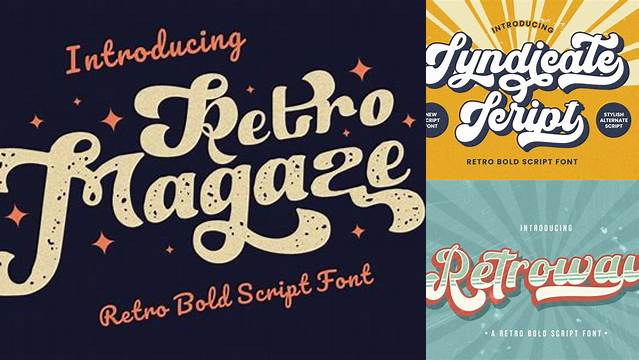
Hey guys! Are you looking to inject some vintage charm and personality into your designs? Look no further than the world of retro bold script fonts! These fonts are perfect for adding a touch of nostalgia, flair, and a whole lot of character to your projects. In this article, we're diving deep into the realm of retro bold script fonts, exploring their uses, where to find them for free, and how to make the most of them in your designs. Let's get started!
1. What Makes a Font 'Retro Bold Script'?
So, what exactly defines a retro bold script font? Well, it's a combination of elements that evoke a sense of the past. Retro implies a style that's reminiscent of previous eras, often the mid-20th century (think the 50s, 60s, and 70s). Bold refers to the weight of the font, making it stand out and grab attention. And script indicates a font that's designed to mimic handwriting, often with flowing lines and elegant curves.
When you put it all together, a retro bold script font is a typeface that carries the visual characteristics of vintage handwriting with a strong, assertive presence. These fonts often feature exaggerated swashes, loops, and terminals that add to their unique character. They can range from playful and whimsical to sophisticated and refined, depending on the specific design. The key is that they all have a distinct retro vibe that makes them instantly recognizable and appealing.
The use of retro bold script fonts can instantly transport your audience to another time. Whether you're designing a logo, creating a poster, or crafting a website, these fonts can add a layer of authenticity and visual interest that's hard to achieve with more modern typefaces. They're a fantastic way to make a statement and stand out from the crowd, especially in a world where so many designs tend to look the same.
2. The Allure of Free Retro Fonts
- Creative Market: This platform often features free goods, including fonts, that are available for a limited time. Keep an eye out for retro bold script fonts in their freebies section.
4. Essential Font Licensing Information
Before you start using any free retro bold script font in your projects, it's crucial to understand the font license. Font licenses dictate how you can use the font, and violating the terms can lead to legal issues. Here are some common types of font licenses:
- Commercial License: Allows you to use the font for commercial purposes, such as in logos, advertising, and products for sale.
- Personal Use License: Restricts the use of the font to personal projects, such as school assignments or hobby designs.
- Open Source License: Grants you the freedom to use, modify, and distribute the font as you see fit. However, you may be required to give attribution to the original author.
- Freeware License: Allows you to use the font for free, but may come with certain restrictions, such as a prohibition on modifying or redistributing the font.
Always read the license agreement carefully before using a font, and if you're unsure about the terms, it's best to contact the font designer or foundry for clarification.
5. How to Identify High-Quality Free Fonts
So, you've found a free retro bold script font that you like, but how do you know if it's any good? Here are some things to look for: